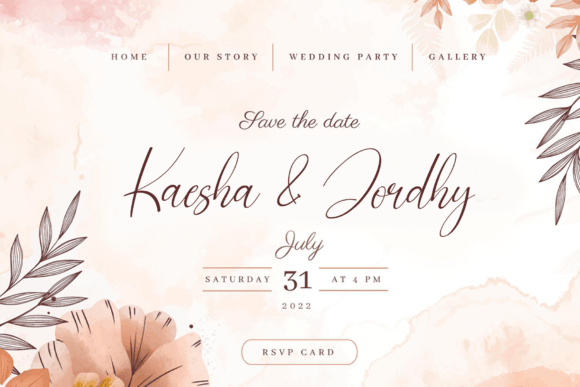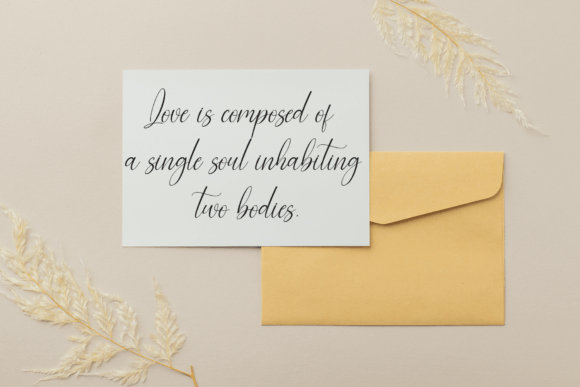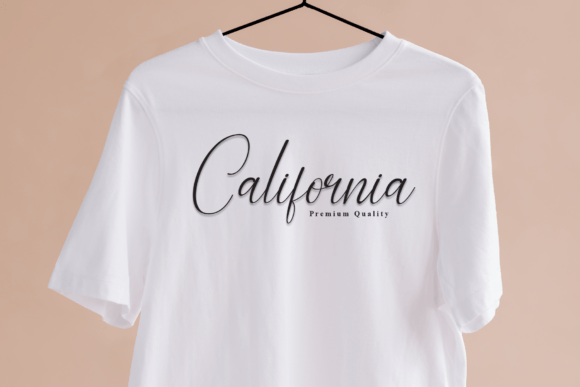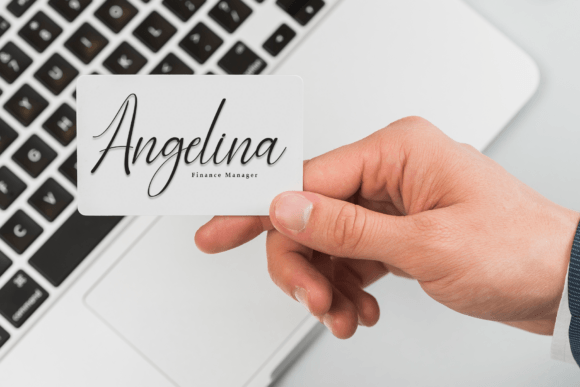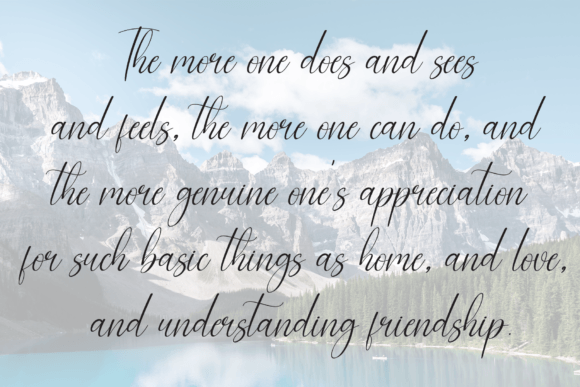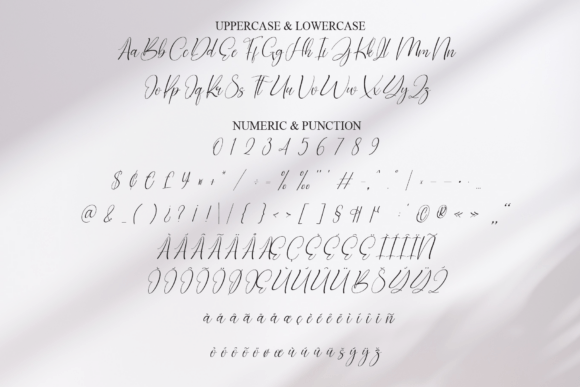
Discover the Timeless Elegance of Britannia Font
Remember the moment when you stumbled upon the perfect font that made your design project come alive? For many designers, that moment is often a game-changer. It’s the spark that ignites creativity and sets the tone for a project’s success. For me, that moment came when I discovered the Britannia Font – a stunning handwritten script that effortlessly adds a touch of sophistication to any project.
Britannia Font is a stylish and modern typeface designed to bring warmth and elegance to your work. Its flowing strokes and organic curves make it an ideal choice for branding, invitations, and social media. With the Britannia Font, you can add a personal, refined touch to your projects with effortless charm.
As a designer, having access to a versatile and high-quality font like Britannia Font can be a valuable asset. It’s a tool that can elevate your designs and help you stand out in a crowded market. Whether you’re a seasoned pro or just starting out, Britannia Font is definitely worth exploring.
Britannia Font Key Features
- Unique Characteristics: The font features a classic, elegant design with intricate details and ornate flourishes, making it suitable for formal and historical designs.
- Kerning and Ligatures: The font includes advanced kerning and ligature features, ensuring smooth text rendering and professional typography.
Britannia Font Review
Overall, I found the Britannia font to be a great addition to any design project. ✨ Its elegant and classic design makes it perfect for creating a sophisticated and professional look. ✨ I particularly appreciate its versatility in various font sizes and styles.
- It’s a great choice for body text due to its readability and legibility.
- It pairs well with other classic fonts like Times New Roman or Garamond.
- It’s suitable for both print and digital designs.
However, I did encounter some limitations when using the Britannia font. ⚠️ The font can appear somewhat bland or unexciting if used extensively throughout a design. ⚠️ I also found that it doesn’t work as well in smaller font sizes, where the text can become difficult to read.
- The font may not be the best choice for designs that require a lot of emphasis or visual interest.
- It may not be the most suitable font for designs that require a modern or edgy look.
Overall, I think the Britannia font is a solid choice for designers who want to create a classic and professional look. While it may have some limitations, it’s a great addition to any design toolbox.
Getting the Most Out of Britannia Font
The Britannia font is a versatile and elegant font that can be used for various design projects. To get the most out of it, consider the following tips:
– Use the font in conjunction with a clean and simple design aesthetic to maximize its impact.
– Experiment with different font sizes and styles to create visual interest and hierarchy in your design.
– Use the font in combination with other design elements, such as graphics and images, to add depth and context to your design.
The Britannia font is commonly used for:
– Branding and identity projects, such as logos and business cards.
– Print materials, such as brochures and flyers.
– Digital materials, such as websites and social media graphics.